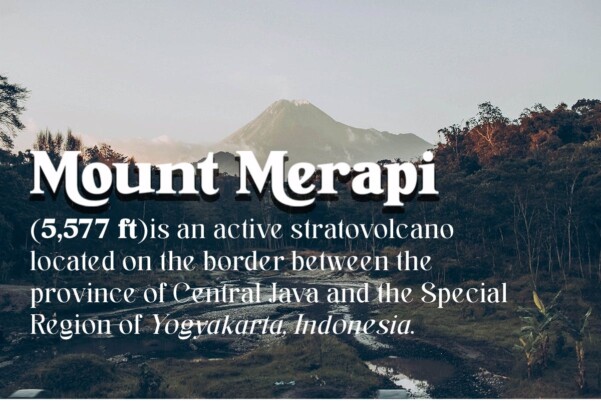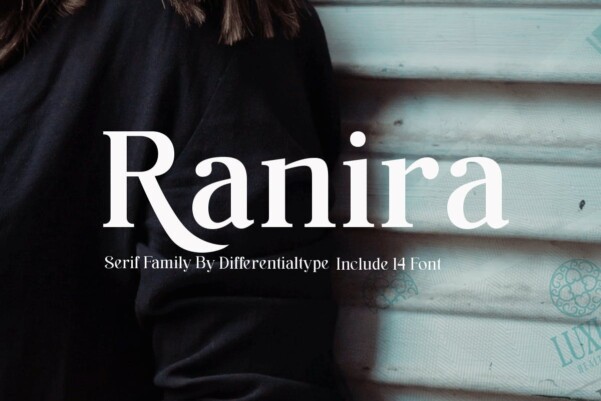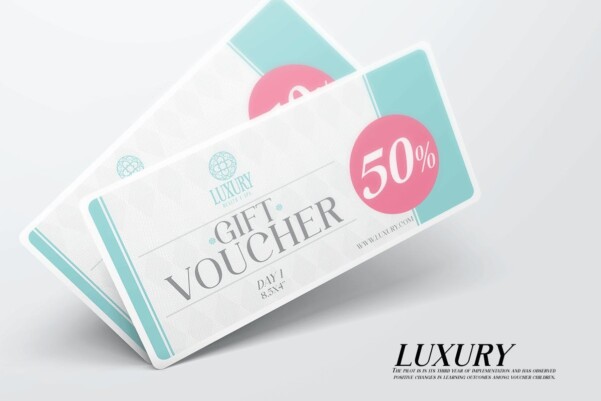
Ranira Font
Ranira Font is an elegant and assertive serif font. This font is PUA encoded which means you can access all glyphs and swashes easily! Add it with confidence to your favorite creations and be amazed by the result.